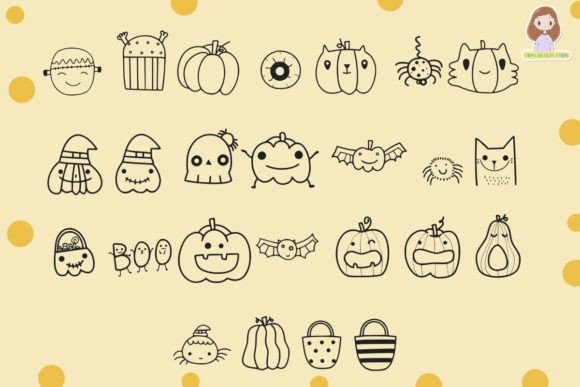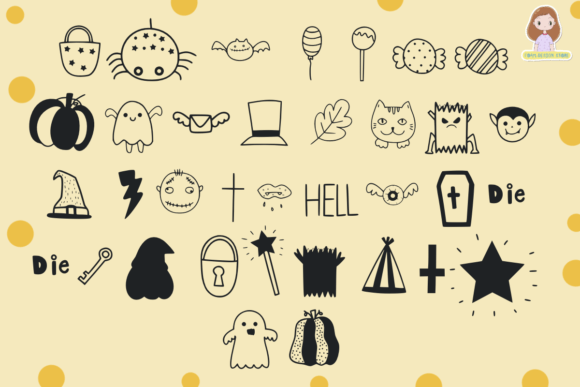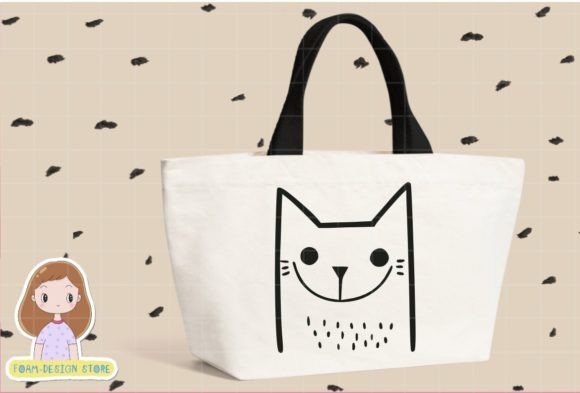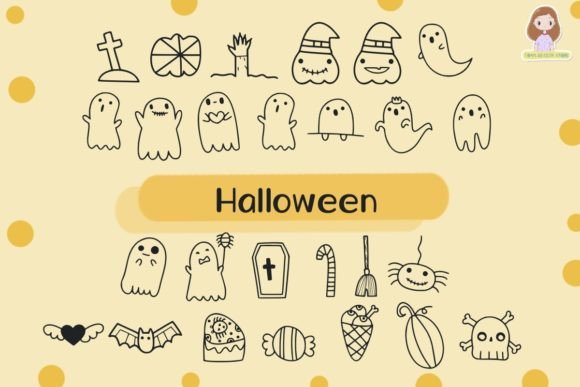
Unleash the Spooky Spirit with Halloween Font: A Comprehensive Guide
Halloween is just around the corner, and what better way to get into the spooky spirit than with a font that’s as eerie as it is fun? Look no further than the Halloween Font, a delightful dingbats font that’s packed with ghosts, pumpkins, cats, cauldrons, and spider webs. In this article, we’ll dive into the world of Halloween Font and explore how you can use it to make your creative projects stand out.
What is Halloween Font?
Halloween Font is a unique dingbats font that’s specifically designed to capture the essence of the spookiest time of the year. With a wide range of Halloween-themed characters, this font is perfect for designers, crafters, and anyone looking to add a touch of Halloween magic to their projects.
Features of Halloween Font
So, what makes Halloween Font so special? Here are just a few of its standout features:
• Ghosts, goblins, and pumpkins galore: From creepy ghosts to adorable pumpkins, this font has everything you need to create spooky and fun designs.
• Cats, cauldrons, and spider webs: Add a touch of witchy magic to your projects with these and other Halloween-themed characters.
• Perfect for a range of projects: From invitations and party decorations to social media graphics and blog posts, Halloween Font is versatile enough to use in any Halloween-related project.
How to Use Halloween Font in Your Projects
Now that we’ve covered the basics of Halloween Font, let’s dive into some ideas for using it in your projects. Here are a few of our favorites:
1. Halloween Invitations and Party Decorations
Create spooky and fun invitations and party decorations with Halloween Font. Use the font to add creepy details like ghosts, bats, and spiders to your designs, or create cute and playful invitations featuring pumpkins and cats.
2. Social Media Graphics and Blog Posts
Add a touch of Halloween magic to your social media graphics and blog posts with Halloween Font. Use the font to create eye-catching graphics featuring Halloween-themed characters, or add a spooky touch to your blog posts with Halloween-themed headers and footers.
3. Crafting and DIY Projects
Halloween Font is also perfect for crafting and DIY projects. Use the font to add creepy details to your Halloween-themed crafts, or create custom signs and decorations for your home.
Tips and Tricks for Using Halloween Font
Here are a few tips and tricks to help you get the most out of Halloween Font:
• Experiment with different colors and textures: Add depth and interest to your designs by experimenting with different colors and textures.
• Mix and match characters: Don’t be afraid to mix and match different characters to create unique and interesting designs.
• Use Halloween Font in combination with other fonts: Combine Halloween Font with other fonts to create visually interesting and dynamic designs.
Halloween Font is a fun and spooky dingbats font that’s perfect for designers, crafters, and anyone looking to add a touch of Halloween magic to their projects. With its wide range of Halloween-themed characters and ease of use, this font is sure to become a go-to in your creative toolkit. So why wait? Download Halloween Font today and start creating your own spooky and fun designs!